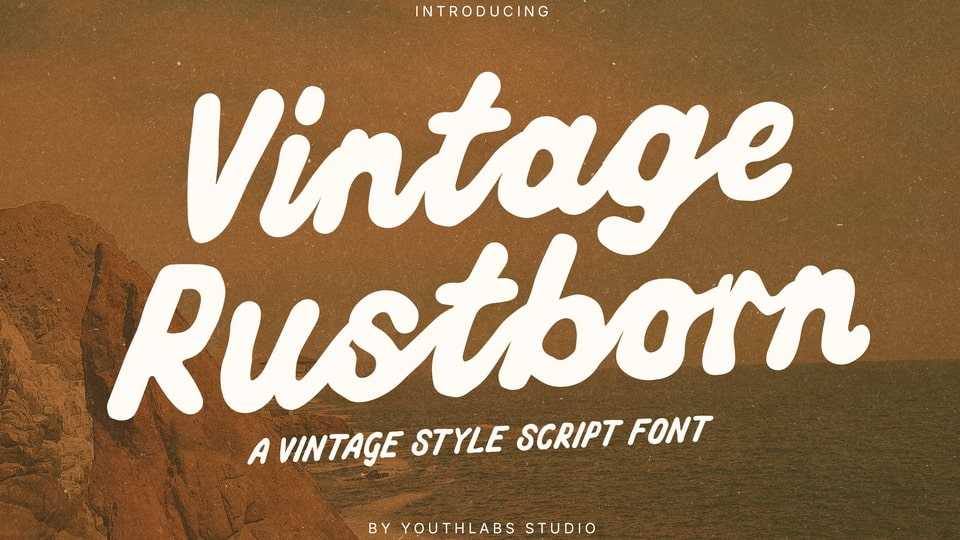
Download Vintage Rustborn font, a bold retro script typeface inspired by 60s–70s signage, warm coastal aesthetics, and nostalgic handwritten brush lettering.
Designer: Youthlabs Studio